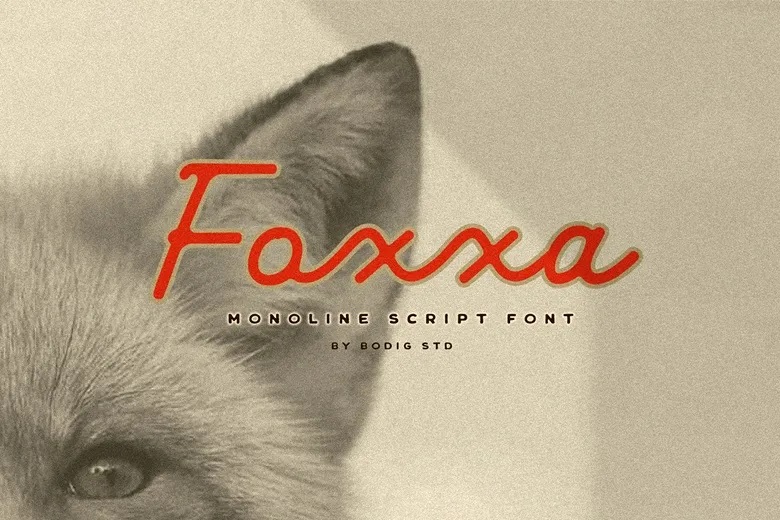
Foxxa Font
Foxxa is a modern monoline script font with a touch of elegance and simplicity – it looks good on everything from product labels, t-shirts, logos, book covers, posters, and more.
Foxxa Monoline Script Font